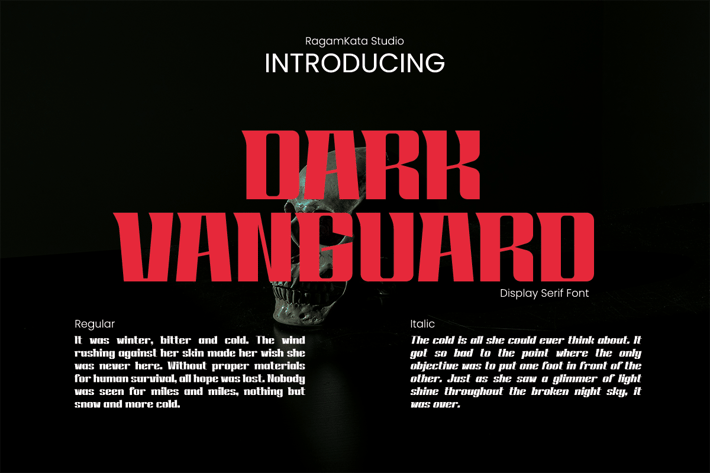
Dark Vanguard - Modern Tittle Display Font
Dark Vanguard is Modern Display Font. This typeface is perfect for branding, logos, headlines, Captions. or simply as a stylish text overlay to any background image.
Dark Vanguard Features:
Alternates
Numerals & Punctuation
Accented characters